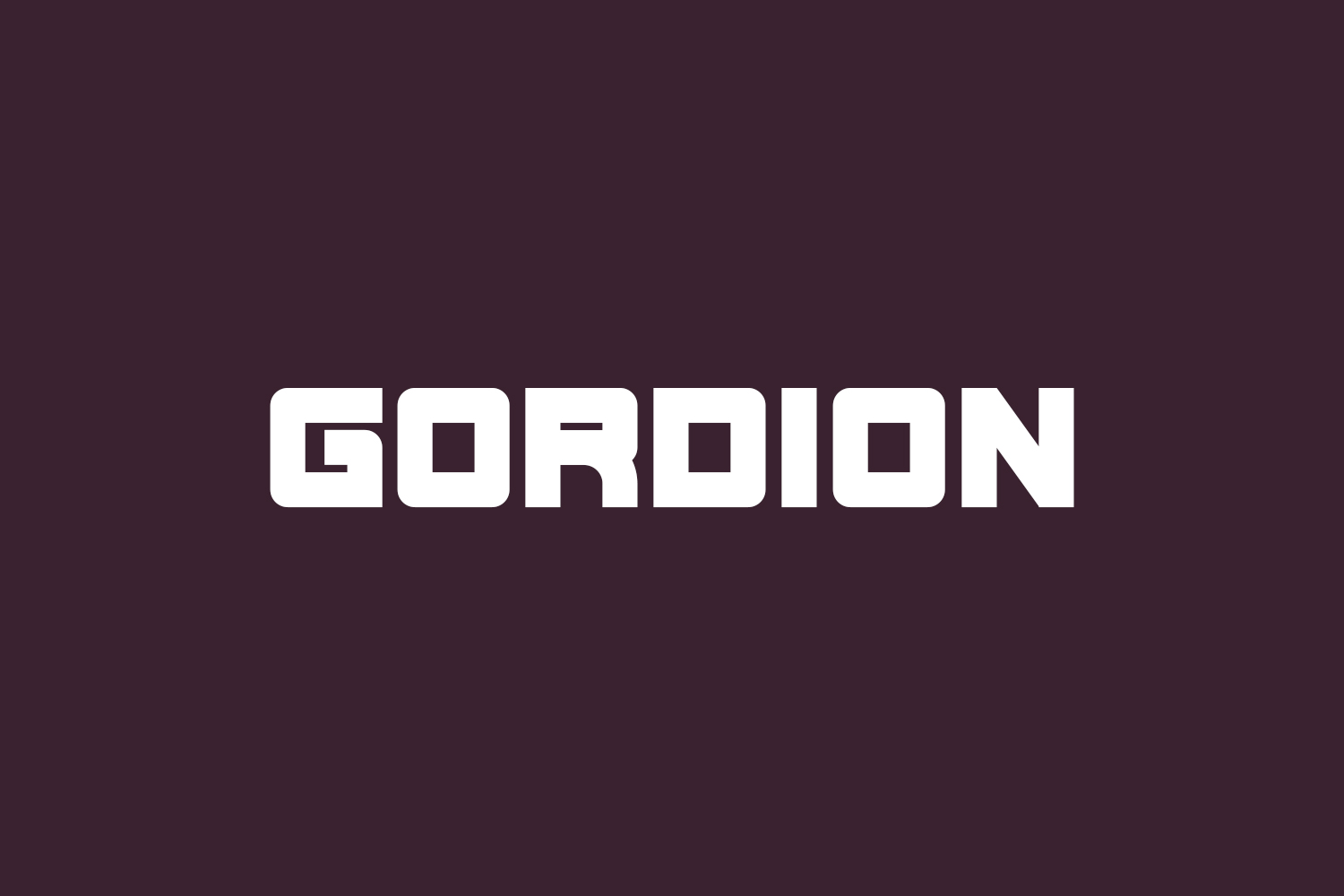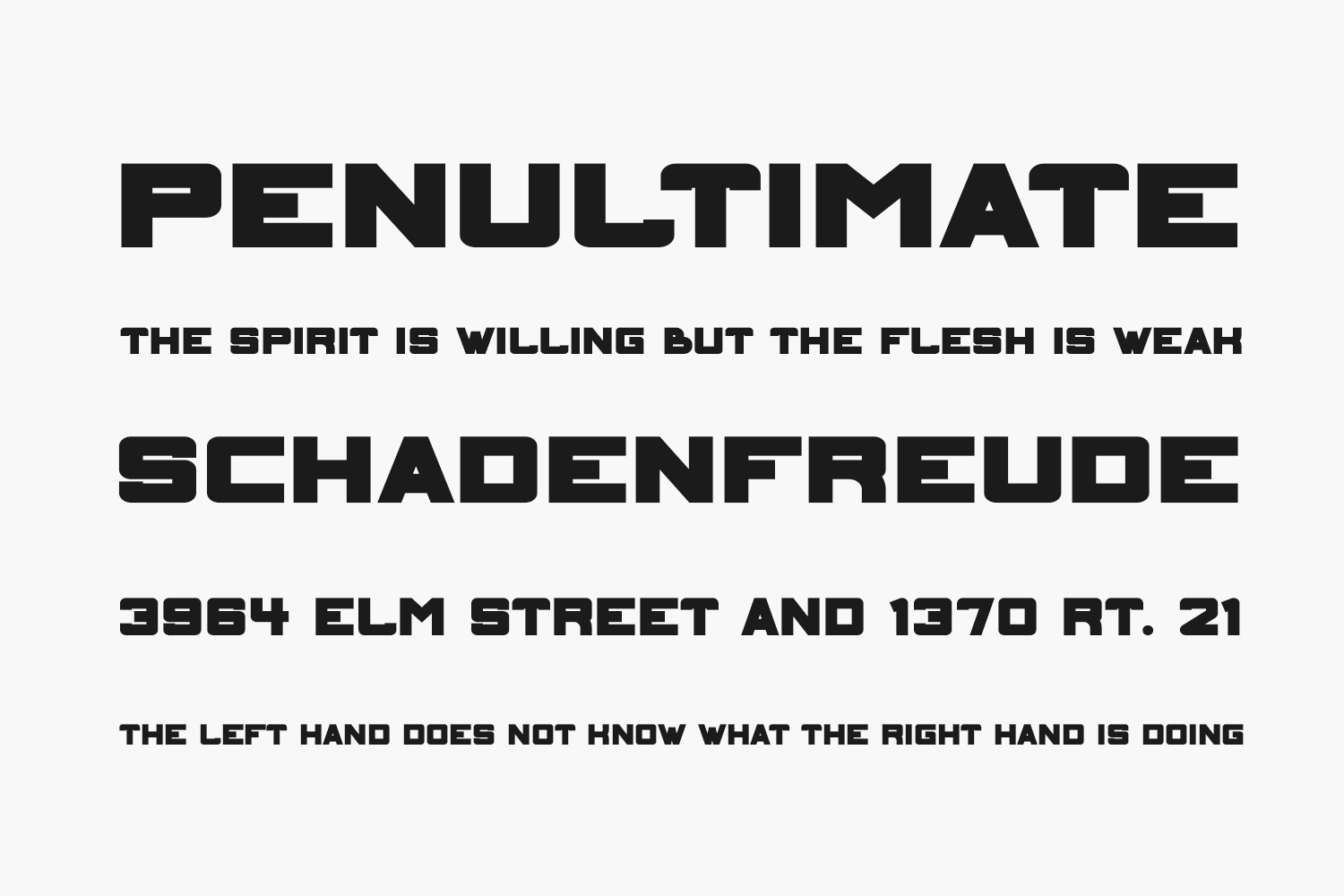
Gordion Free Font is a contemporary Sans Serif font designed to elevate your creative projects to new heights. Ideal for logos, branding, businesses, photography, gaming, and a myriad of other creative endeavors, Gordion adds a modern touch to any design. With its versatility and sleek aesthetic, this font is sure to make your projects stand out. Explore the possibilities with Gordion today and take your creativity to the next level. Download the font for free if you need it for personal use or purchase the full version for commercial use.